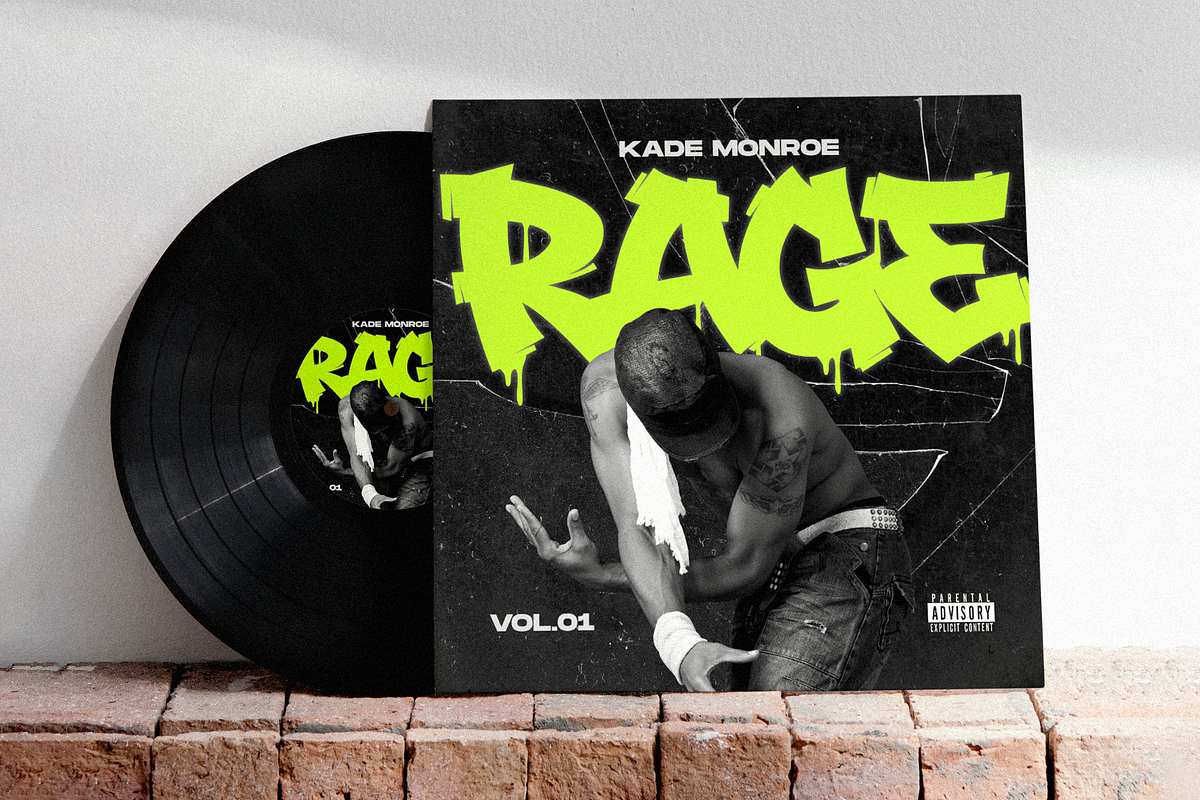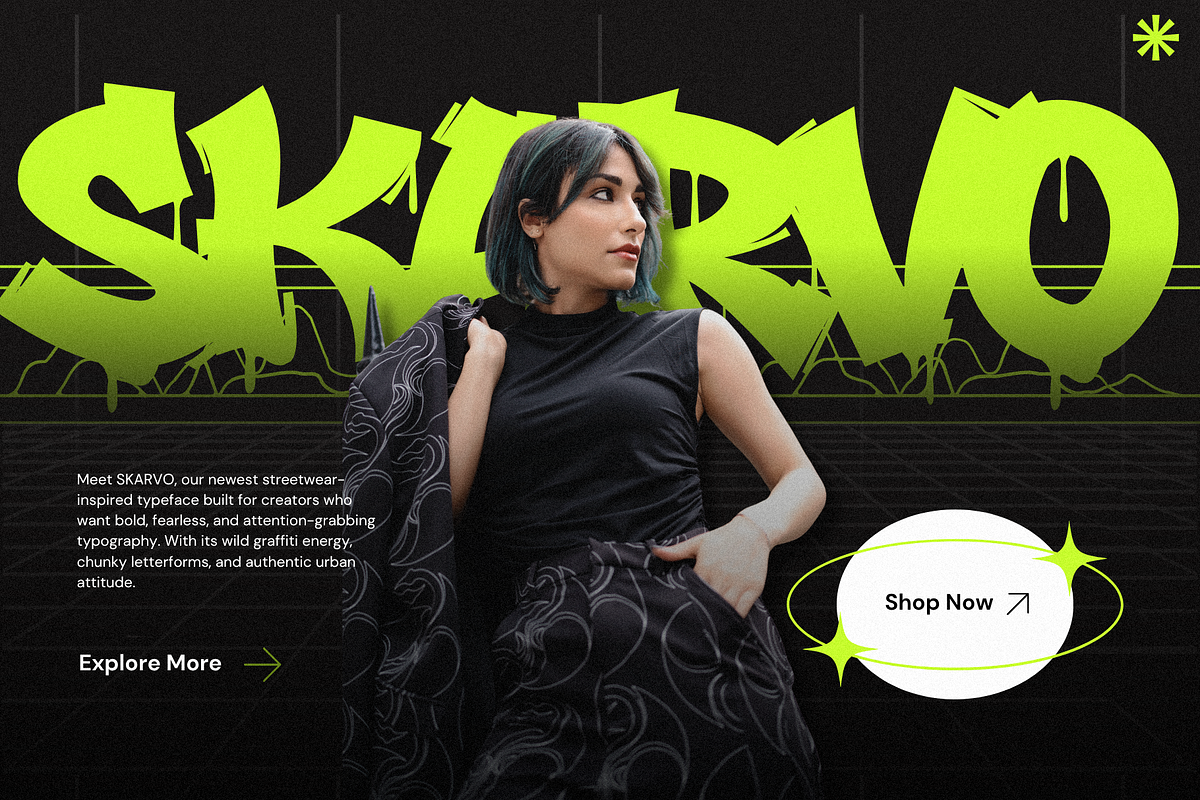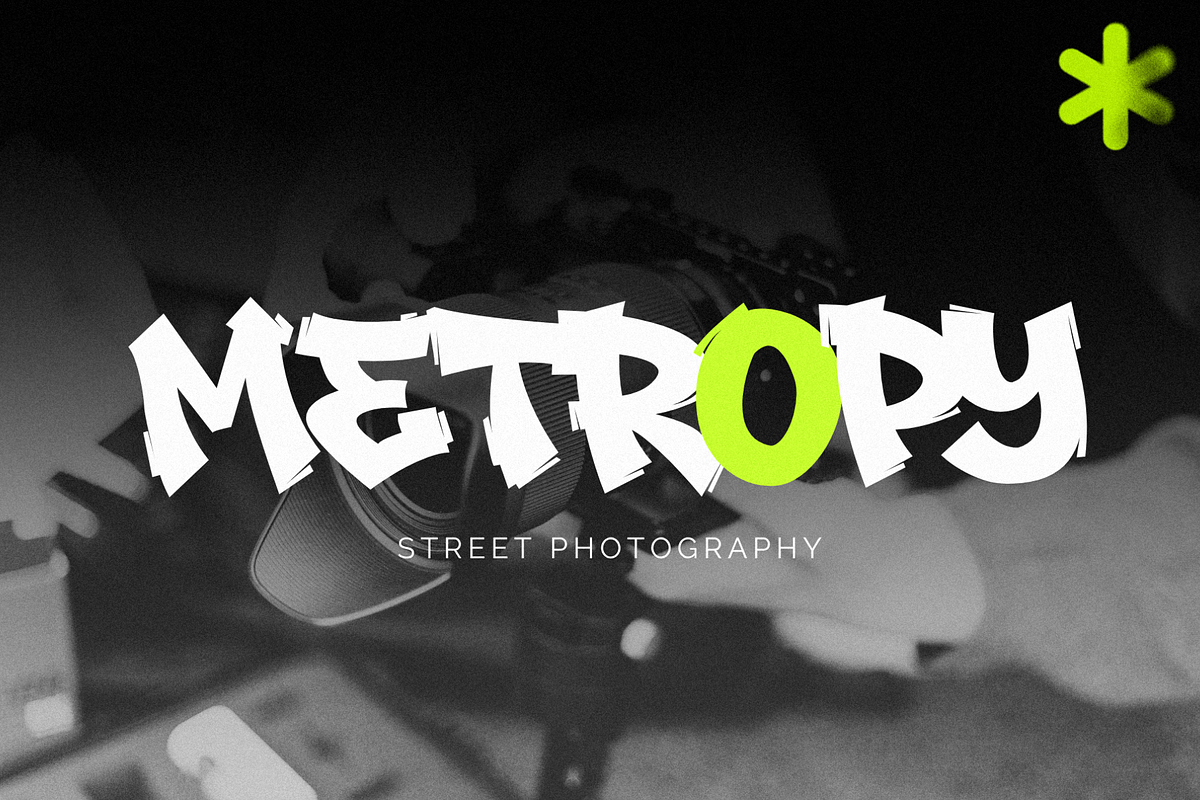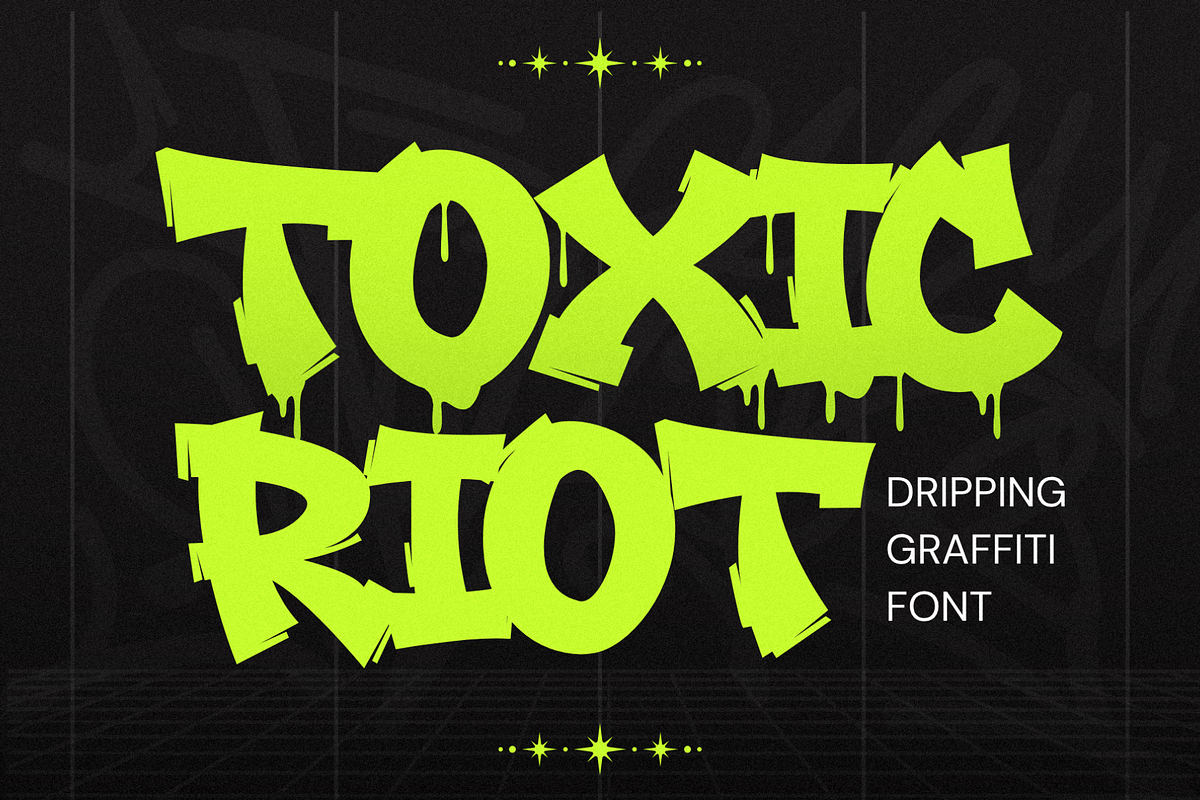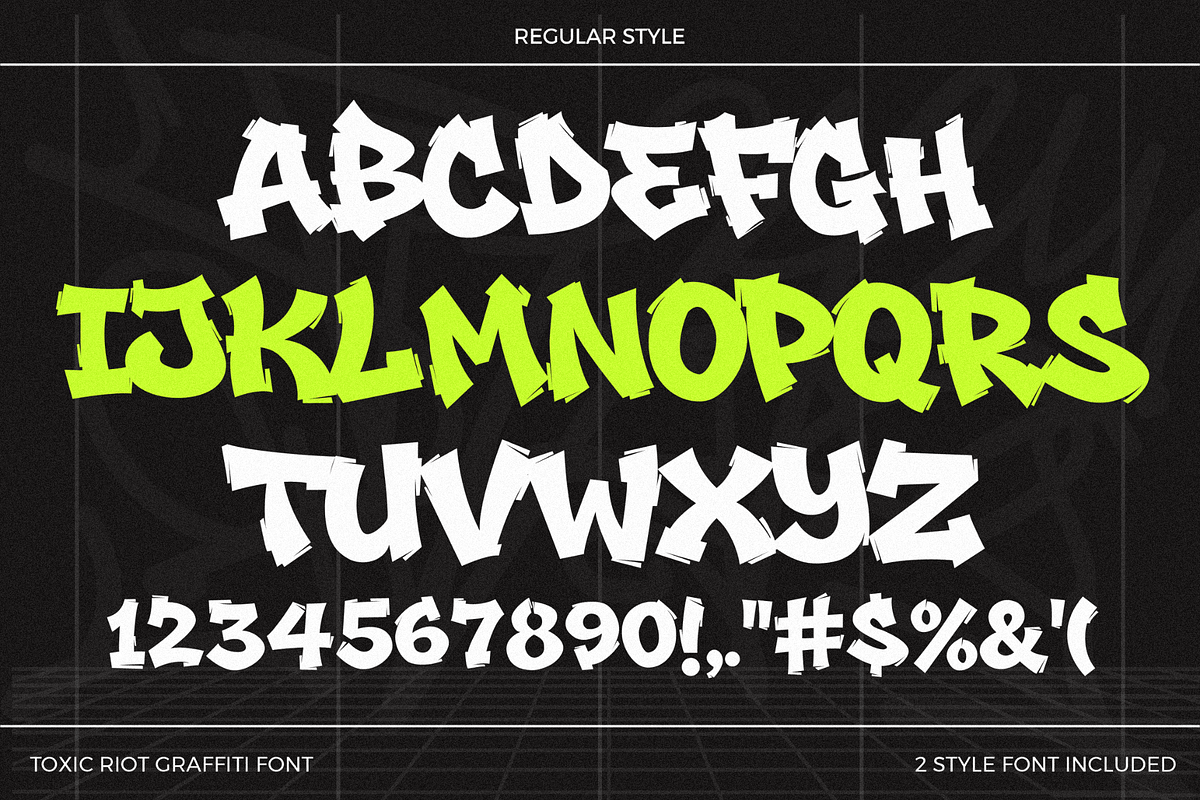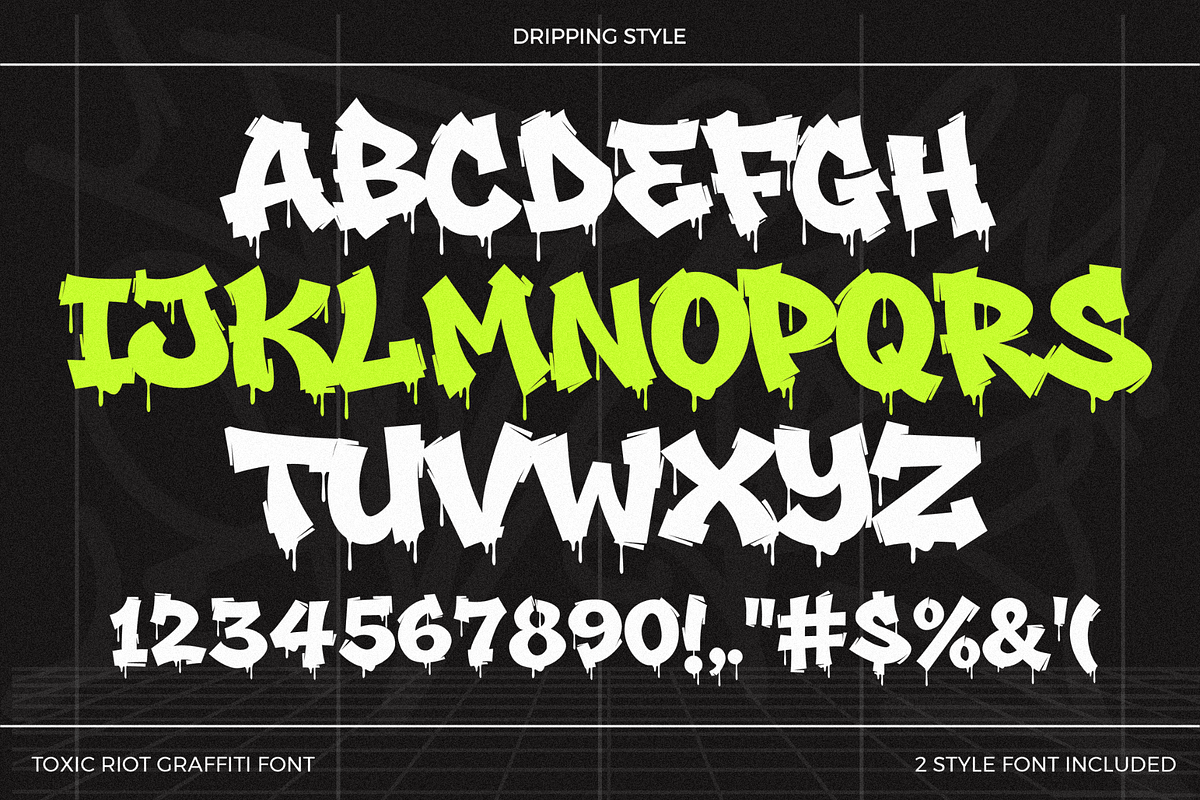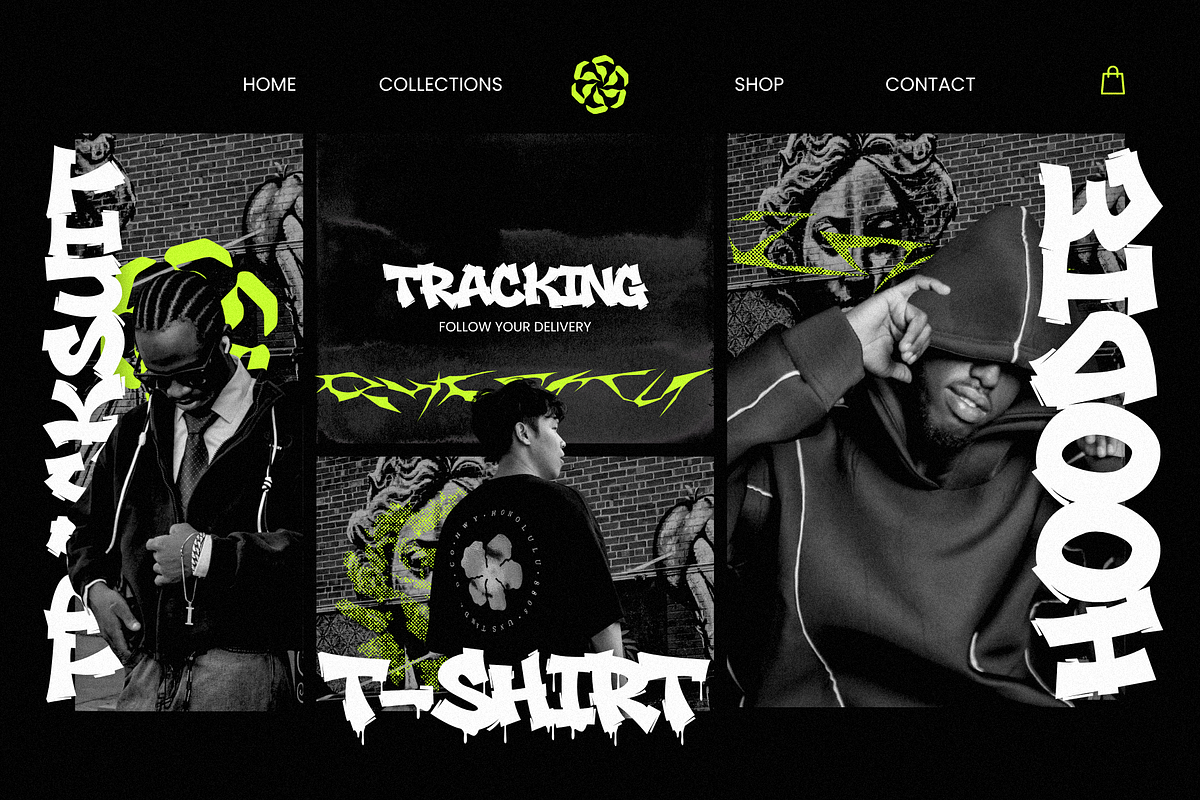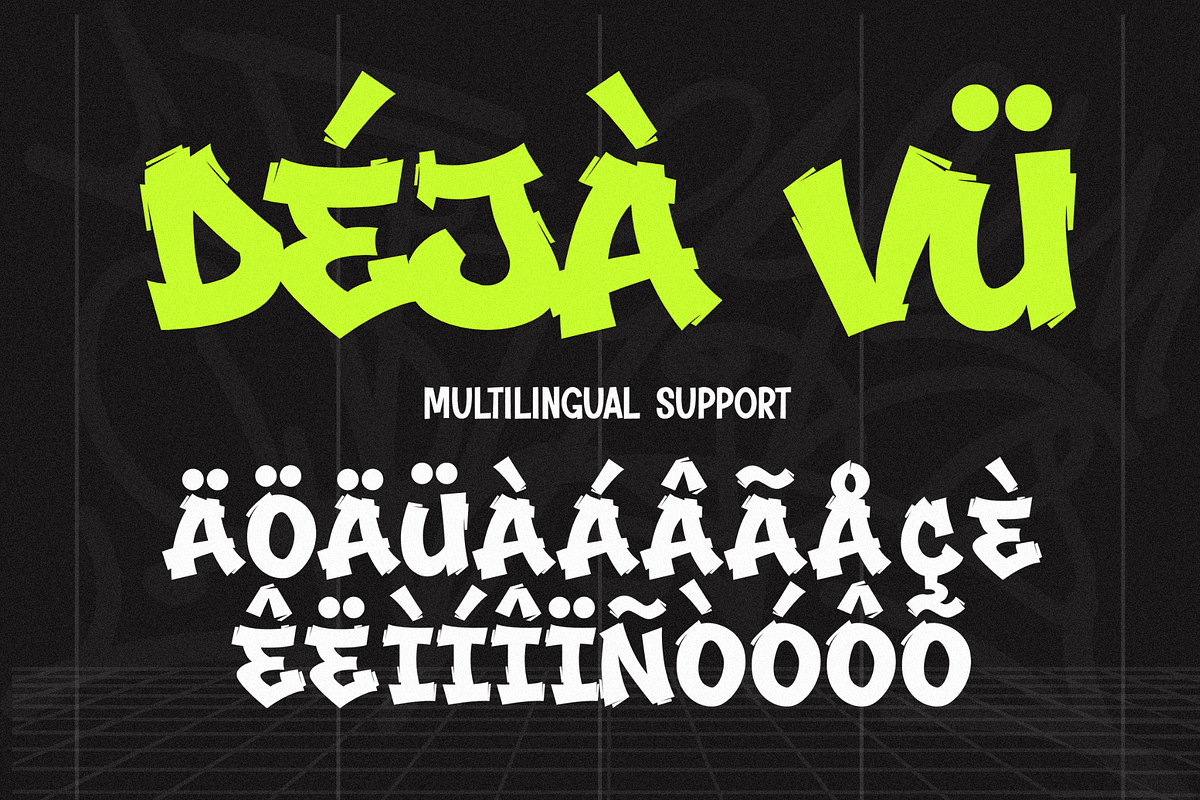
Toxic Riot - Dripping Graffiti Font
Toxic Riot – Dripping Graffiti Font is a bold display typeface created for artwork that needs raw energy, rebellious character, and an unmistakable graffiti atmosphere. Built around expressive letterforms and melting drip details, this font turns ordinary words into strong visual elements that can become the center of a composition.
The graffiti-inspired shapes give Toxic Riot a spontaneous, hand-painted attitude, while the heavy structure keeps headlines clear and noticeable. It works especially well when typography needs to dominate the layout, whether you are creating a large poster title, an album cover, an event announcement, a sticker graphic, or an energetic digital composition.
Two styles are included to give you more control over the final mood. Use the regular Toxic Riot style when you want bold graffiti lettering with a cleaner silhouette, or switch to Toxic Riot Drip when the artwork calls for a stronger melting, dripping, or freshly painted appearance. Both styles can also be combined within the same composition to create contrast and hierarchy.
Perfect for Creative Projects
Toxic Riot is designed for typography-led artwork where large lettering plays an important visual role. Use it for posters, album covers, music graphics, event flyers, stickers, packaging artwork, video titles, thumbnails, social media graphics, editorial covers, game graphics, wall-art concepts, and graffiti-inspired illustrations.
Its expressive personality also makes it suitable for punk-inspired visuals, underground music artwork, horror graphics, rebellious poster compositions, and experimental typography.
Allcaps character set
Numbers, punctuation, and symbols
Regular and dripping graffiti styles
Bold display-focused letterforms
Strong graffiti and painted-lettering character
Suitable for large headlines and typography-led compositions
Works across print and digital creative projects
Why Designers Love It
Toxic Riot gives designers two distinct ways to approach graffiti typography without changing the overall visual language of a project. The regular version provides strong, energetic lettering, while the Drip version adds more movement and an intense painted effect.
The heavy all-caps construction makes it easy to build compact headlines, stacked typography, oversized titles, and high-impact compositions. Numbers, punctuation, symbols, and multilingual support also provide flexibility for projects that require more than a simple alphabet.
Instead of relying on additional effects to create personality, the letterforms already carry the visual energy needed for expressive display work.
Make Every Word Hit Harder
When typography needs to become part of the artwork rather than simply deliver information, Toxic Riot – Dripping Graffiti Font brings the right combination of graffiti attitude, bold structure, and dripping movement. Use it to transform headlines into commanding visual statements across posters, album artwork, event graphics, stickers, digital content, and experimental creative projects.